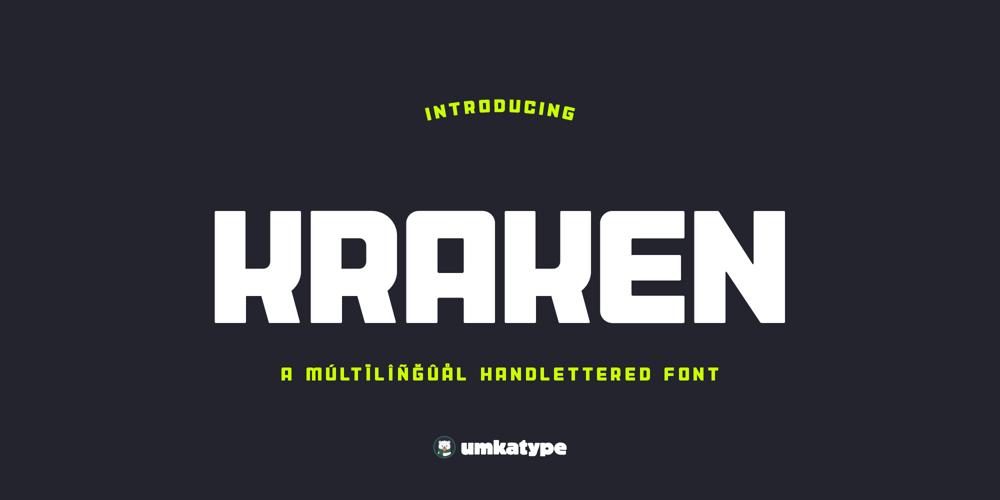
Kraken Font Family was designed by Alper Çakıcı and published by Umka Type. Kraken contains 1 styles and family package options. Introducing Kraken, a soft futuristic font designed to bring a touch of modernity to your projects. With its soft corners and sleek design, Kraken is perfect for conveying a sense of innovation and sophistication. This versatile font supports the Cyrillic language, making it ideal for multilingual projects, especially those involving Russian content. In addition, Kraken is a global solution, supporting a total of 92 languages. Elevate your designs with Kraken’s clean and futuristic aesthetic, ensuring readability and style across a wide range of applications.